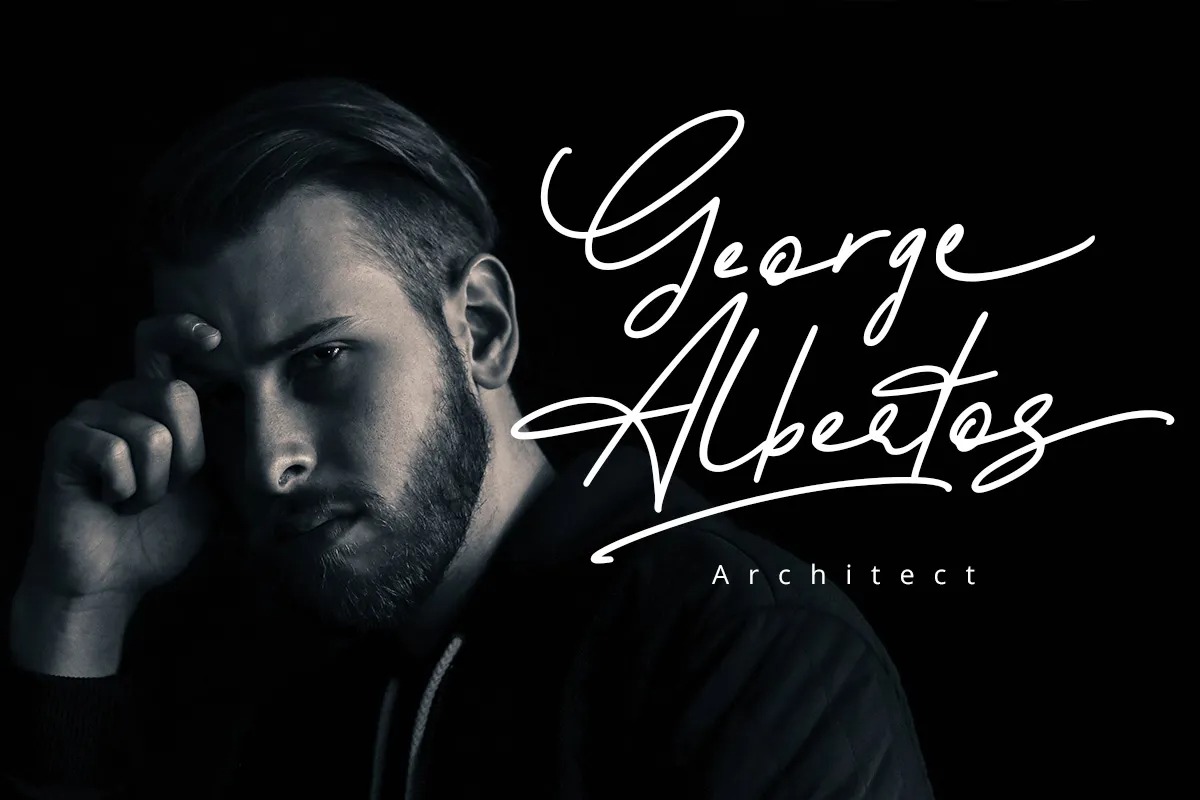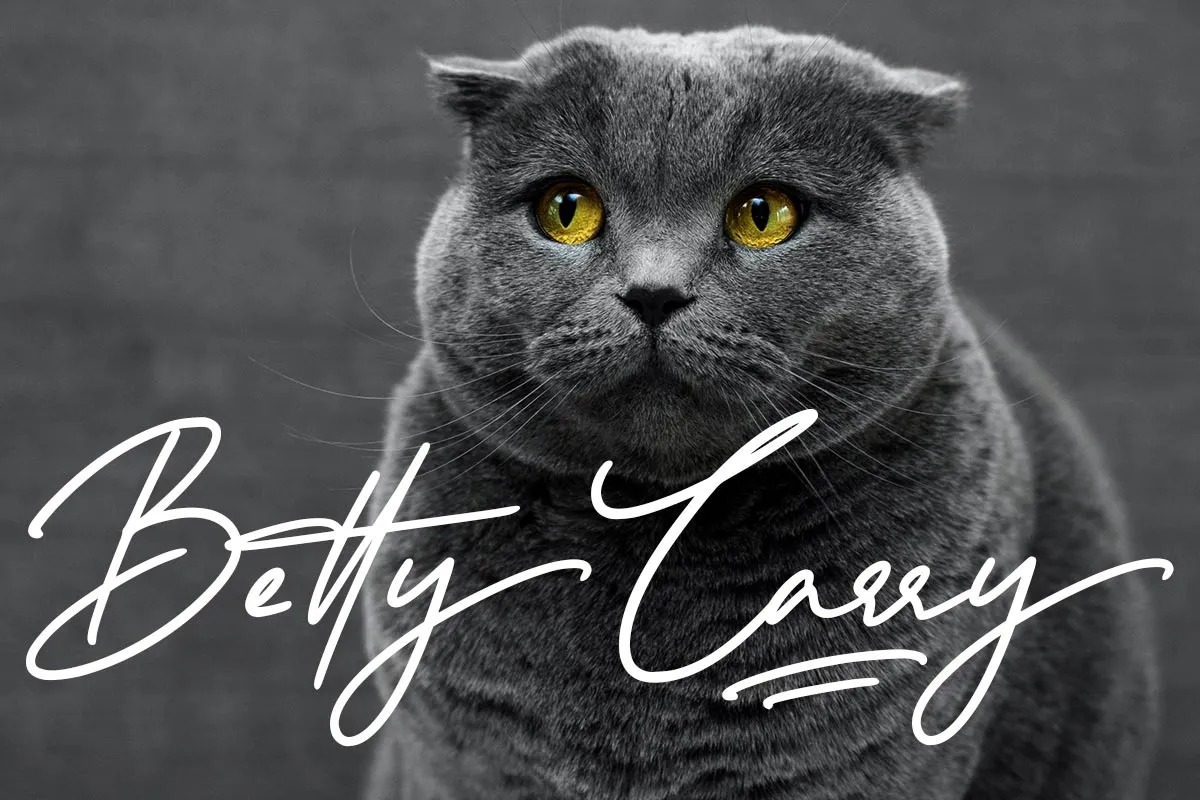
Sweetcatty Font
Sweetcatty Handwritten Font
It’s a simple and delicate signature Typeface, which comes with beautiful binding and beautiful alternatives. It’s designed and shared by fontkong. This font will suit a variety of wedding invitations, fashion cards, and more. It has exquisite strokes and is carefully crafted to look elegant.